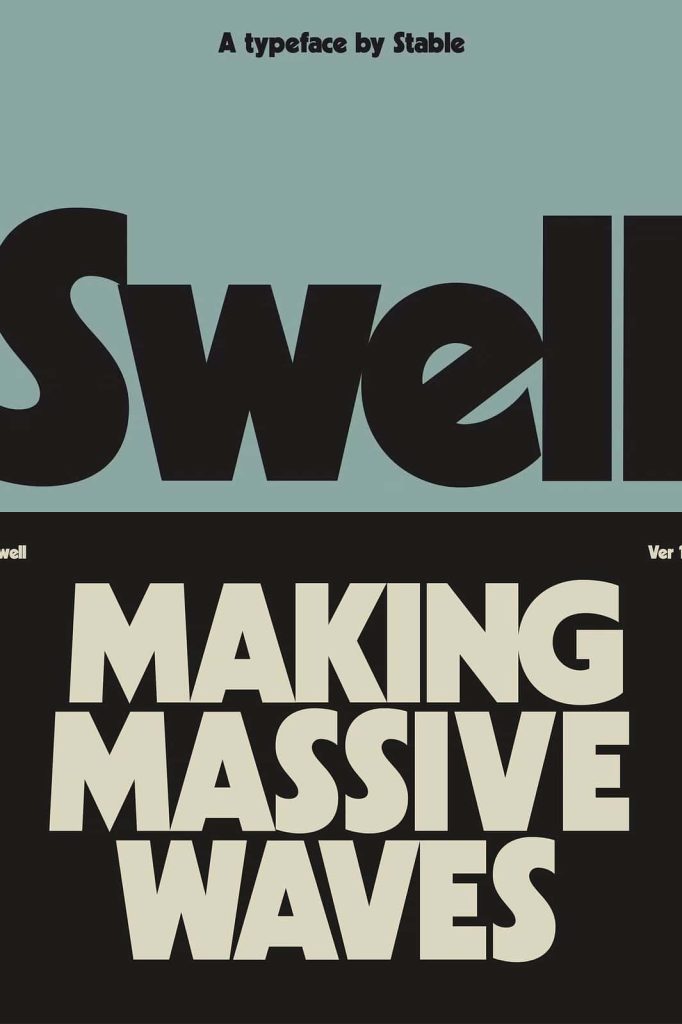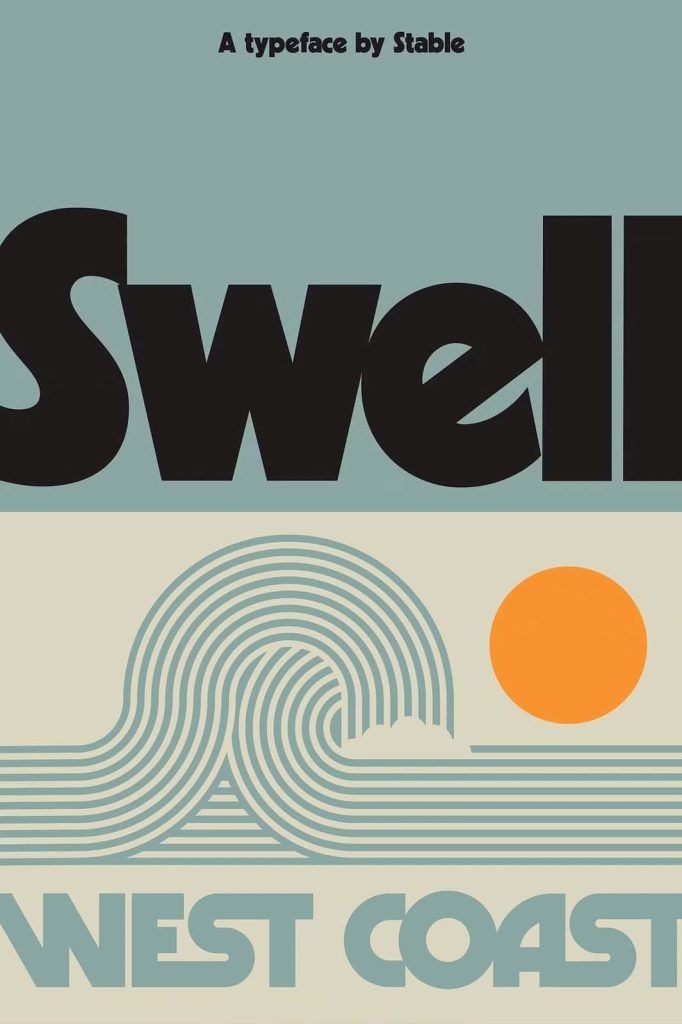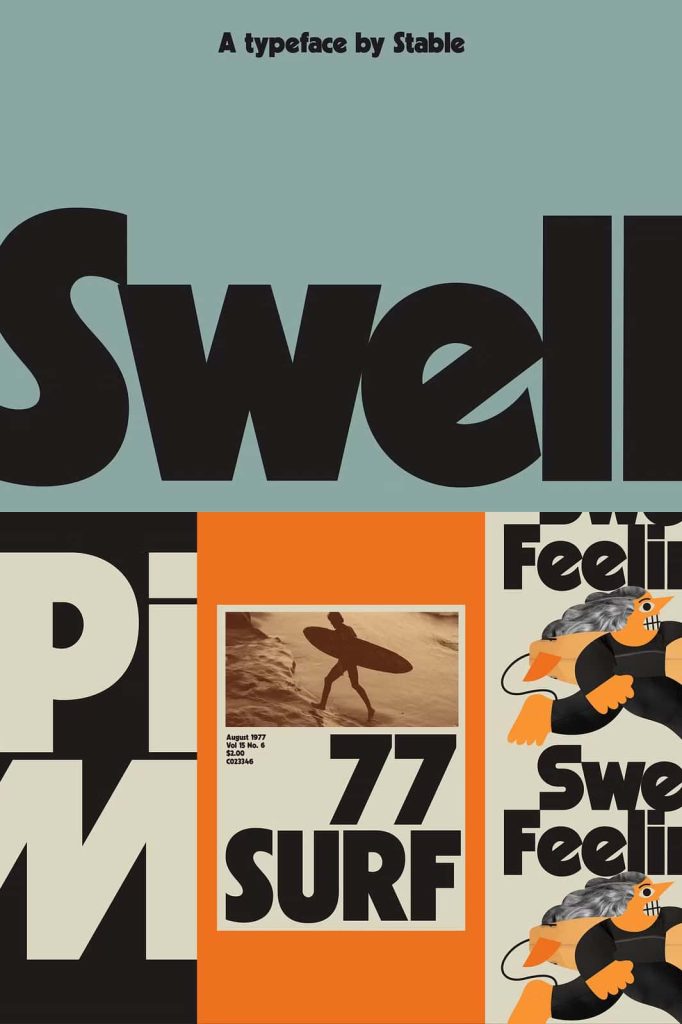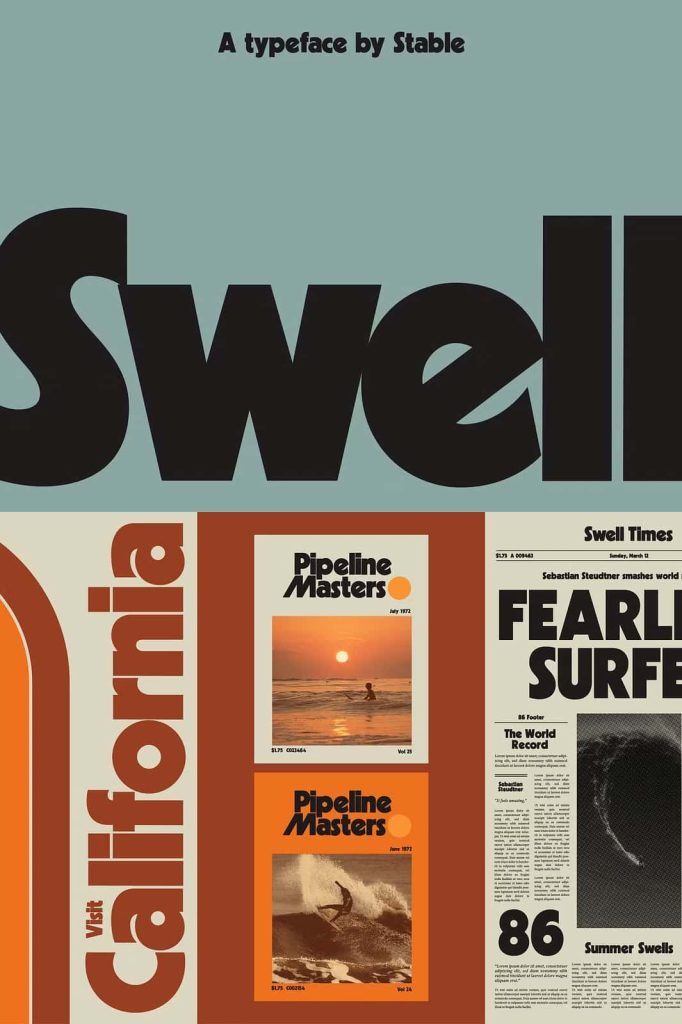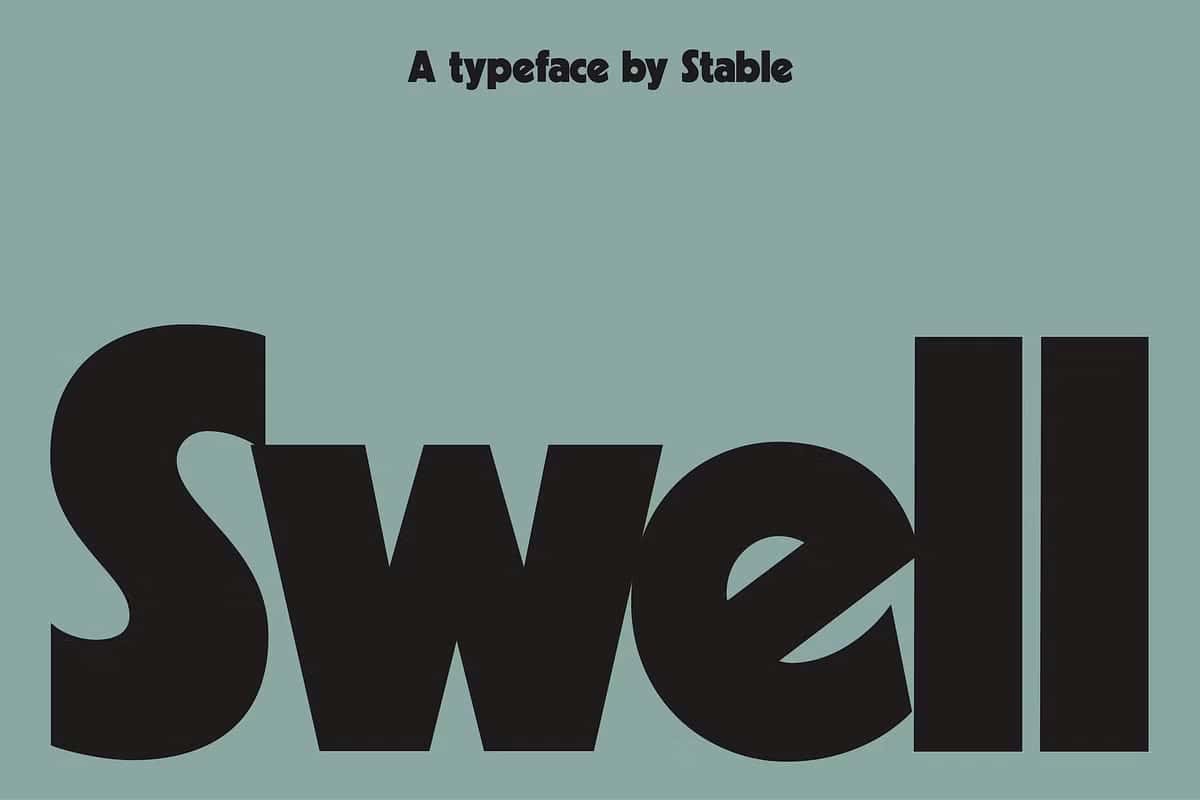
Swell Font: A Bold Geometric Sans Inspired by Classic Typography
Swell introduces a fresh and energetic interpretation of the timeless geometric sans serif style. Inspired by the iconic Kabel Black, this font reimagines classic design principles with a modern twist. It delivers bold shapes, clean geometry, and a confident visual presence that instantly captures attention. Designers can use Swell to create striking typography that feels both nostalgic and contemporary.
A Modern Revival of a Timeless Classic
Swell builds upon the strong foundation of Kabel Black while pushing the design forward with refined details and updated proportions. It preserves the geometric precision that made classic sans serif fonts so influential, yet adds a unique personality that feels relevant in today’s design landscape. The result is a typeface that stands out in both digital and print applications.
This font does not simply replicate the past. Instead, it transforms inspiration into innovation. With its bold weight and distinctive letterforms, Swell empowers designers to make confident design choices and create visuals that leave a lasting impression.
Complete Character Set for Maximum Flexibility
Swell includes a full set of uppercase and lowercase letters, numbers, punctuation, and an impressive collection of over 50 alternative glyphs. These alternates draw inspiration from other iconic typefaces such as Avant Garde, Marvin, and Blippo, giving you the freedom to experiment and customize your designs.
The inclusion of alternative glyphs allows you to add variation and uniqueness to your typography. You can easily switch characters to create different moods, styles, or visual rhythms. This flexibility makes Swell a powerful tool for designers who want to push creative boundaries.
Key Features of Swell
- Bold geometric sans serif structure
- Uppercase and lowercase character support
- Full set of numbers and punctuation
- Over 50 stylistic alternative glyphs
- Inspired by multiple classic typefaces
Perfect for Bold Branding and Visual Identity
Swell excels in branding projects where strong visual impact matters. Its bold and geometric structure makes it ideal for logos, headlines, and brand names that need to stand out. Designers can use Swell to communicate confidence, creativity, and modernity in a single typeface.
Whether you build a startup identity or refresh an existing brand, Swell helps you create a cohesive and memorable look. Its clean lines and balanced proportions ensure readability while maintaining a distinctive style that sets your brand apart from competitors.
Common Branding Applications
- Logo design with bold, modern appeal
- Brand identity systems and guidelines
- Packaging design that demands attention
- Advertising campaigns with strong typography
Elevate Digital and Print Design Projects
Swell adapts seamlessly to various design environments. In digital projects, it enhances website headers, banners, and social media graphics with its bold presence. In print, it brings clarity and impact to posters, magazines, and promotional materials.
The geometric construction ensures consistency across different sizes and formats. Whether you use it for large headlines or detailed layouts, Swell maintains its integrity and visual strength. This versatility makes it a reliable choice for designers working across multiple platforms.
Express Creativity with Alternative Glyphs
One of Swell’s standout features is its collection of alternative glyphs. These stylistic options allow you to experiment with different letterforms and create unique typographic compositions. You can mix and match characters to achieve a playful, retro, or futuristic look depending on your project needs.
Designers who enjoy customization will appreciate how these alternates expand creative possibilities. Instead of relying on a single style, you can craft multiple variations and keep your designs fresh and engaging.
Why Choose Swell Font?
Swell offers more than just a bold appearance. It combines heritage, versatility, and innovation into one cohesive typeface. Its inspiration from classic fonts gives it a sense of familiarity, while its modern updates ensure it feels current and dynamic.
If you want a geometric sans serif font that delivers impact, flexibility, and creative freedom, Swell provides the perfect solution. It helps you design with confidence, experiment with style, and produce work that stands out in any medium.